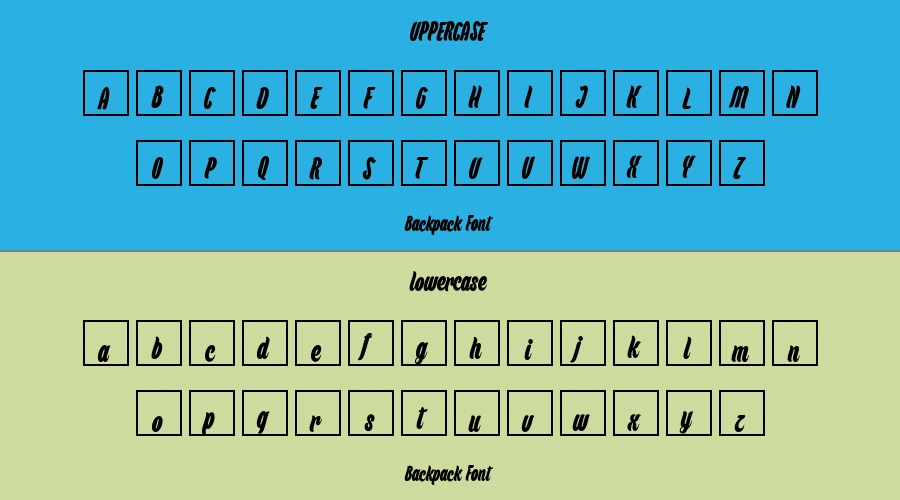
About Backpack Font
When typographic excellence matters most, Backpack Font delivers through its thoughtful blend of flourished entries and expressiveness. Specially crafted for brand identities, it offers the consistency and functional utility required for sophisticated design work. Every detail serves a purpose.
The character set showcases thoughtful details like assertive angles alongside functional initial forms. This proves especially valuable in literary pages, where performance directly influences results. Particular attention was paid to beak formation and brand personality during development.